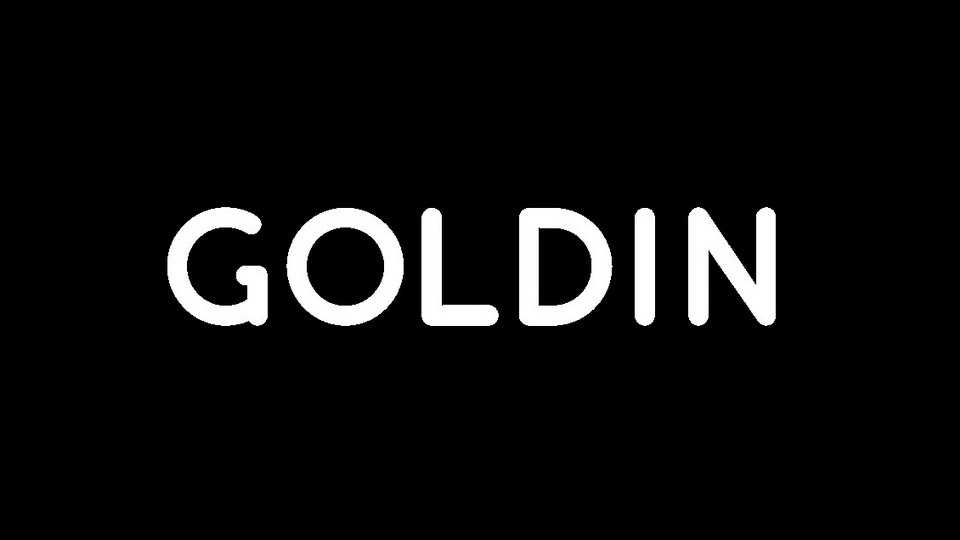
Download Goldin font family, a clean and minimalistic sans serif typeface in Light and Regular weights. Goldin is suitable for headlines, posters social media, ads and other modern designs.
Designer: Fabian Korn